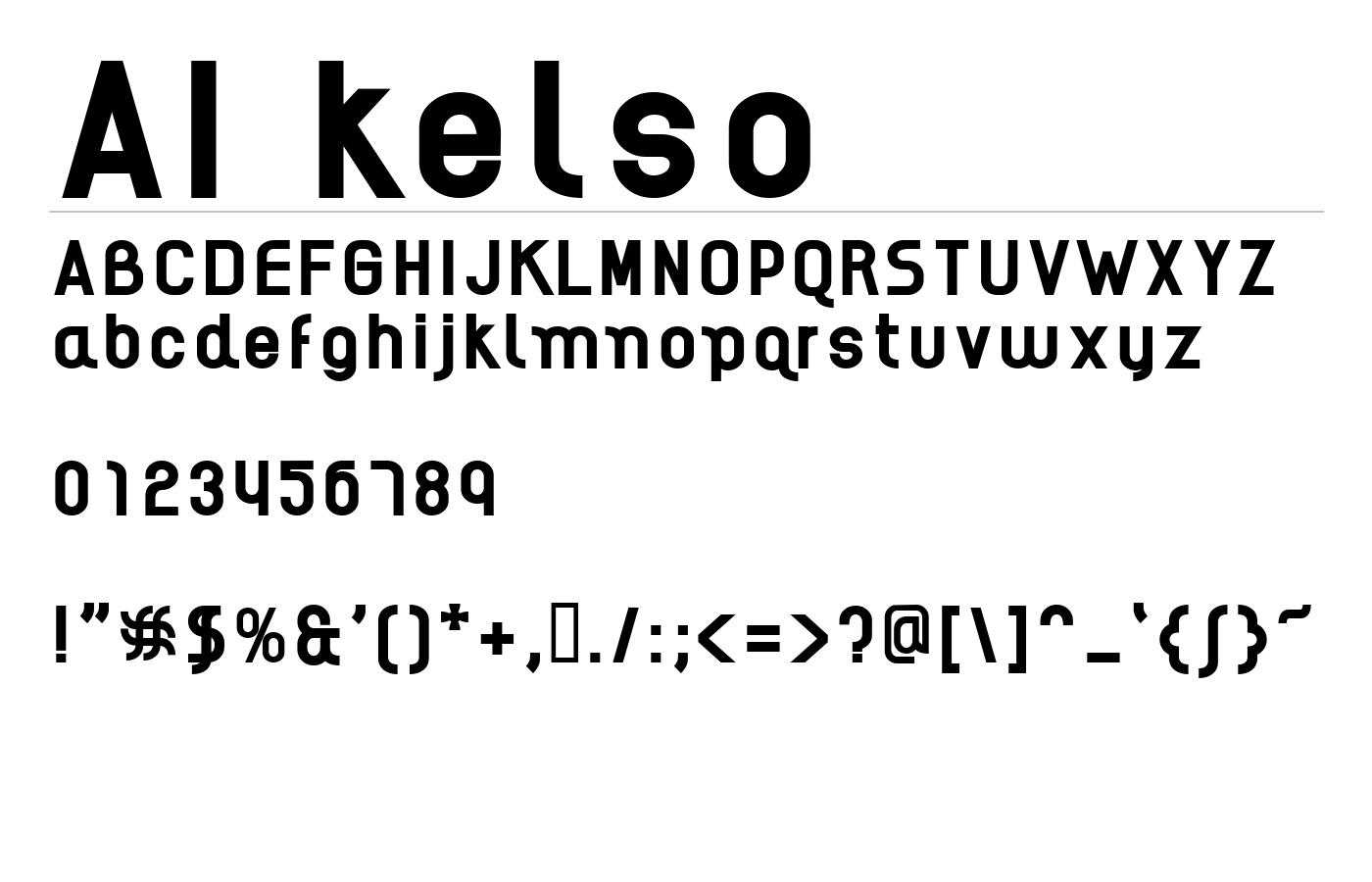
AI Kelso is a bold, condensed sans serif font characterized by its clean, geometric shapes and uniform stroke weight, giving it a modern and industrial feel. Its single-story letters and squared forms create a strong, approachable appearance, making it ideal for impactful headlines, branding, and contemporary editorial design where clarity and presence are key. This font works well for projects aiming for a confident, straightforward, and modern aesthetic.
AI kelso Font
About AI kelso Font